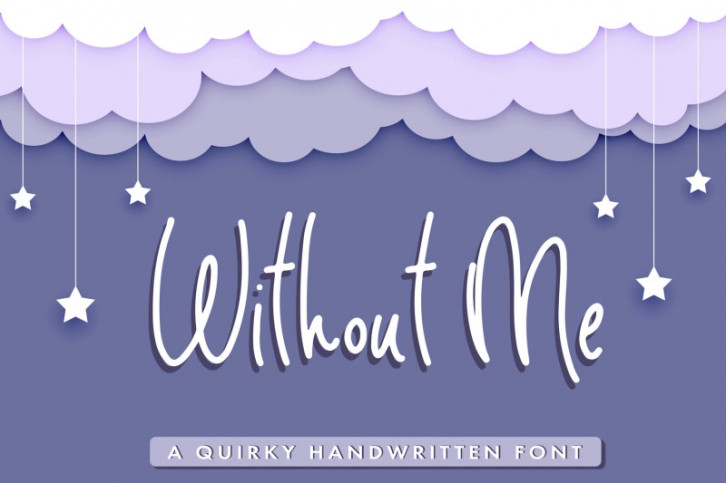
Without Me - A Handwritten Pencil Font
Without Me is a fun handwritten pencil font. Without Me will offer a fun look for different design projects including logos & branding, t-shirts, book covers, social media posts, advertisements & product designs. It also supports Multi Language.
- Without Me - Comes with Uppercase A-Z and lowercase a-z letters, 0-9 numbers, limited punctuation and supports Western European Languages